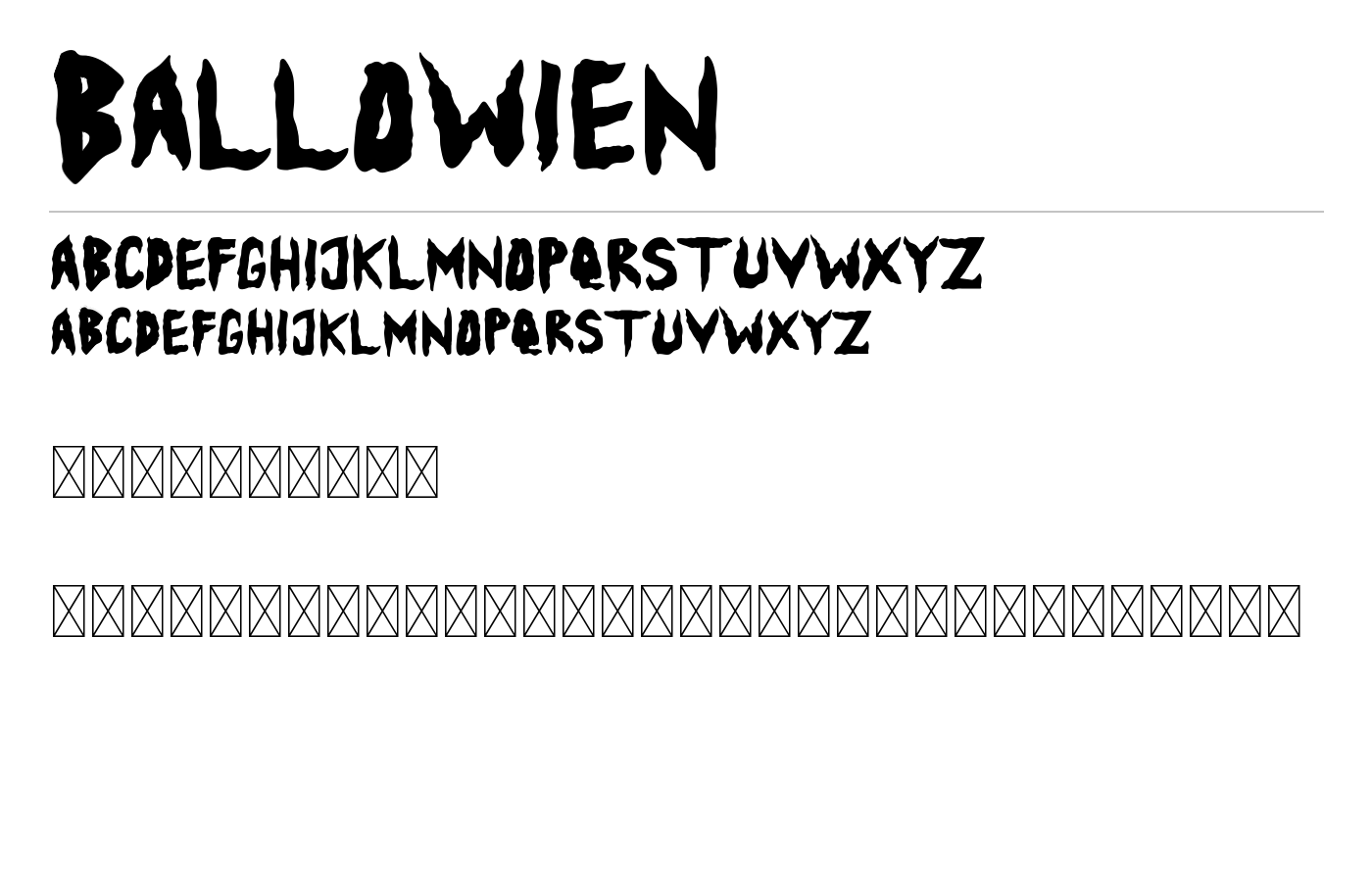
Ballowien is a bold, hand-drawn display font with a rough, irregular texture that gives it a spooky, organic feel. Its tall, uneven letterforms and jagged edges make it perfect for Halloween-themed designs, posters, or any project that needs a playful yet eerie atmosphere. This font stands out in headlines and branding that aim to capture attention with a unique, handcrafted look.
Ballowien Font
About Ballowien Font
| Font family | Ballowien Font |
| Designer | Javatype Studio |